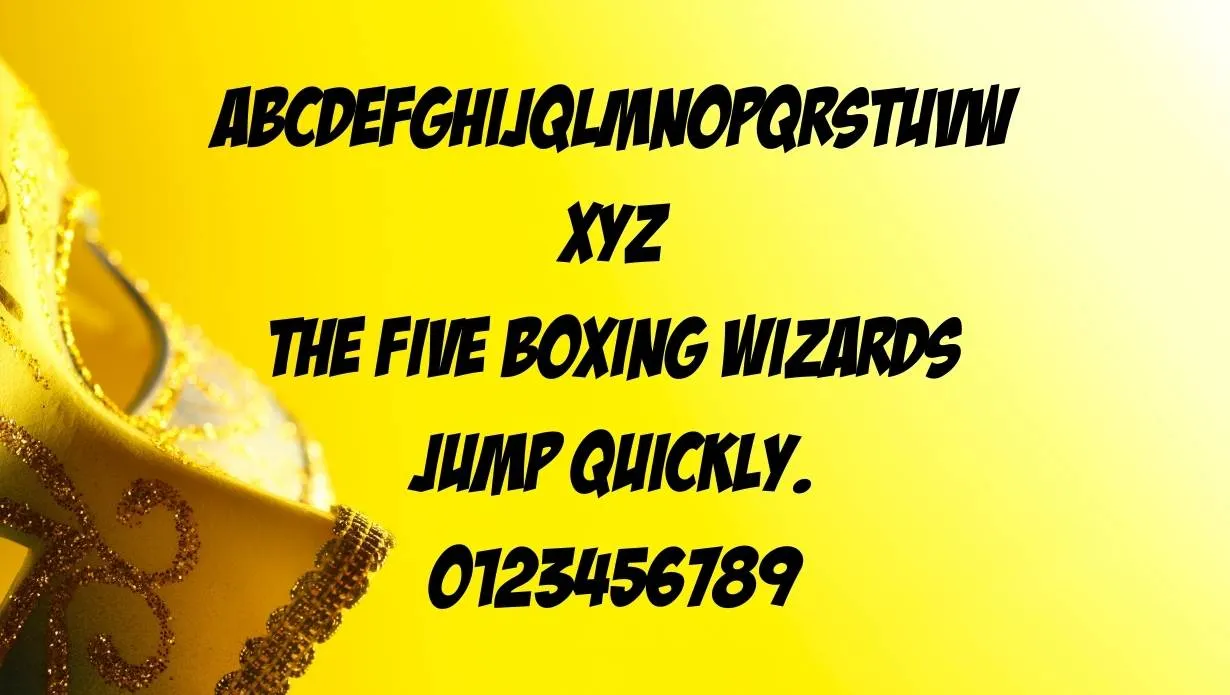
Today we are going to produce a very beautiful font that has clear textures and appearances named Badaboom BB Font. The release year of this typeface is 2003 and after its released, this font achieved more Success.
This typeface belongs to the Fancy font family. This typeface is based on graphic designing purposes and its stylish look is very easy to understand for the reader.
| Name | Badaboom BB Font |
| Designer | Nate Piekos |